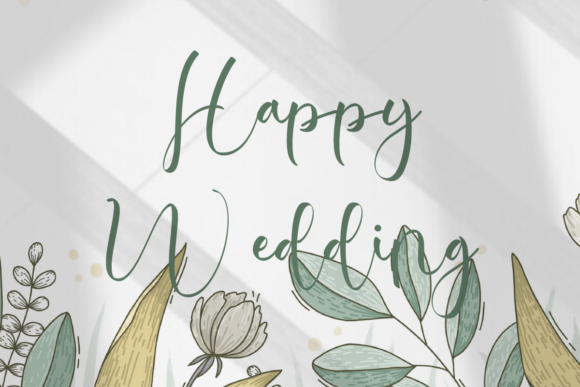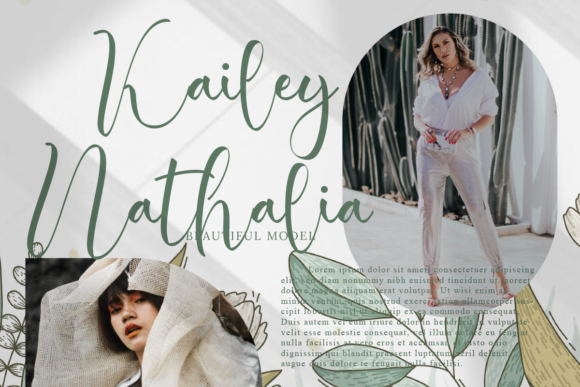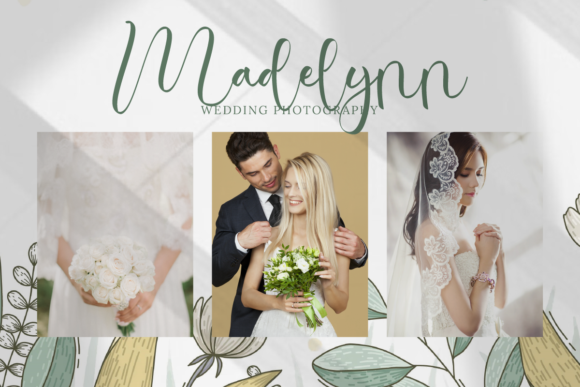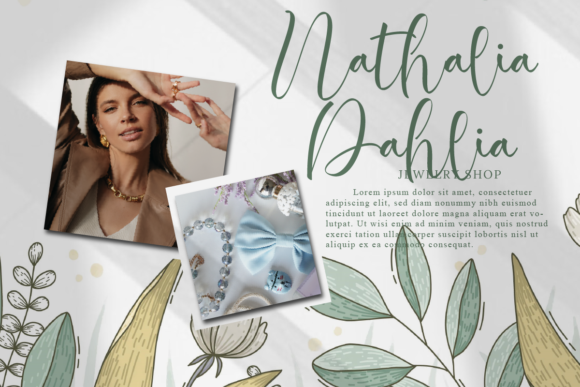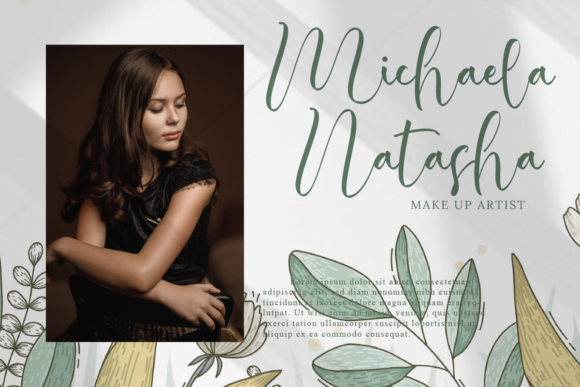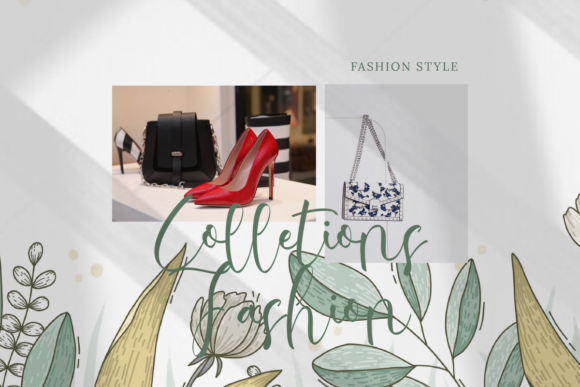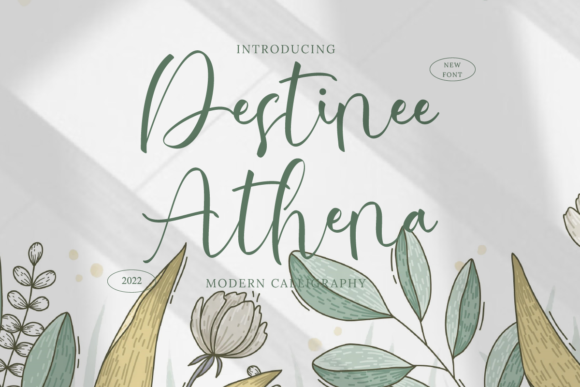
Introducing Destinee Athena Font: Elevate Your Designs with Elegance
In the world of typography, few fonts manage to capture the essence of elegance and style as effectively as Destinee Athena. This stunning script font is a game-changer for designers and crafters looking to add a touch of sophistication to their projects. From wedding invitations to business cards, Destinee Athena is the perfect choice for anyone seeking to make a lasting impression.
The Beauty of Destinee Athena
Destinee Athena is a stylish and incredibly elegant script font that exudes refinement and poise. Its flowing lines and delicate curves make it an ideal choice for designs that require a handwritten touch. Whether you’re creating wedding invitations, thank you cards, or greeting cards, Destinee Athena is sure to impress. Its versatility also makes it suitable for logos, business cards, and a wide range of other design applications.
Key Features of Destinee Athena
- Elegant Script Style: Destinee Athena boasts a beautiful script style that adds a touch of sophistication to any design.
- Versatile: This font is perfect for a wide range of design applications, including wedding invitations, thank you cards, quotes, greeting cards, logos, and business cards.
- Handwritten Touch: Destinee Athena’s flowing lines and delicate curves give it a handwritten feel that’s sure to capture the attention of your audience.
- Easy to Read: Despite its elegant style, Destinee Athena is easy to read, making it perfect for designs that require a clear and concise message.
Uses of Destinee Athena
Destinee Athena’s versatility makes it an excellent choice for a wide range of design applications. Here are some of the most popular uses of this stunning font:
- Wedding Invitations: Add a touch of elegance to your wedding invitations with Destinee Athena. Its flowing lines and delicate curves make it perfect for formal wedding announcements.
- Thank You Cards: Express your gratitude in style with Destinee Athena. This font is ideal for creating beautiful thank you cards that will leave a lasting impression.
- Quotes and Greeting Cards: Destinee Athena’s elegant script style makes it perfect for quotes and greeting cards. Add a touch of sophistication to your designs with this stunning font.
- Logos and Business Cards: Take your branding to the next level with Destinee Athena. This font is perfect for creating elegant logos and business cards that will help you stand out from the competition.
Tips for Using Destinee Athena
To get the most out of Destinee Athena, here are some tips to keep in mind:
- Pair with a Simple Font: Pair Destinee Athena with a simple font to create a beautiful contrast that will make your design stand out.
- Use a Large Size: Use Destinee Athena in a large size to make a bold statement. This font looks stunning in larger sizes, making it perfect for headings and titles.
- Experiment with Colors: Don’t be afraid to experiment with different colors when using Destinee Athena. This font looks beautiful in a range of colors, from classic black and white to bold and bright hues.
In conclusion, Destinee Athena is a stunning script font that is sure to elevate your designs to the next level. Its elegant style, versatility, and handwritten touch make it perfect for a wide range of design applications. Whether you’re a designer or crafter, Destinee Athena is an excellent choice for anyone looking to add a touch of sophistication to their projects. So why wait? Download Destinee Athena today and start creating beautiful designs that will leave a lasting impression.